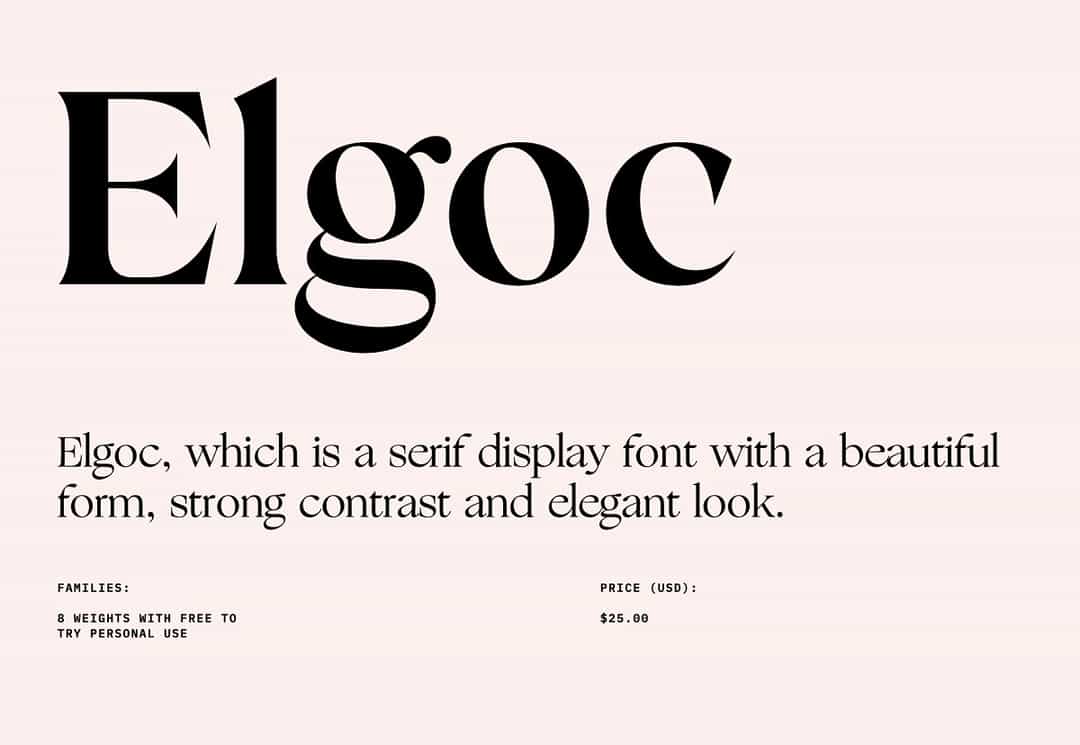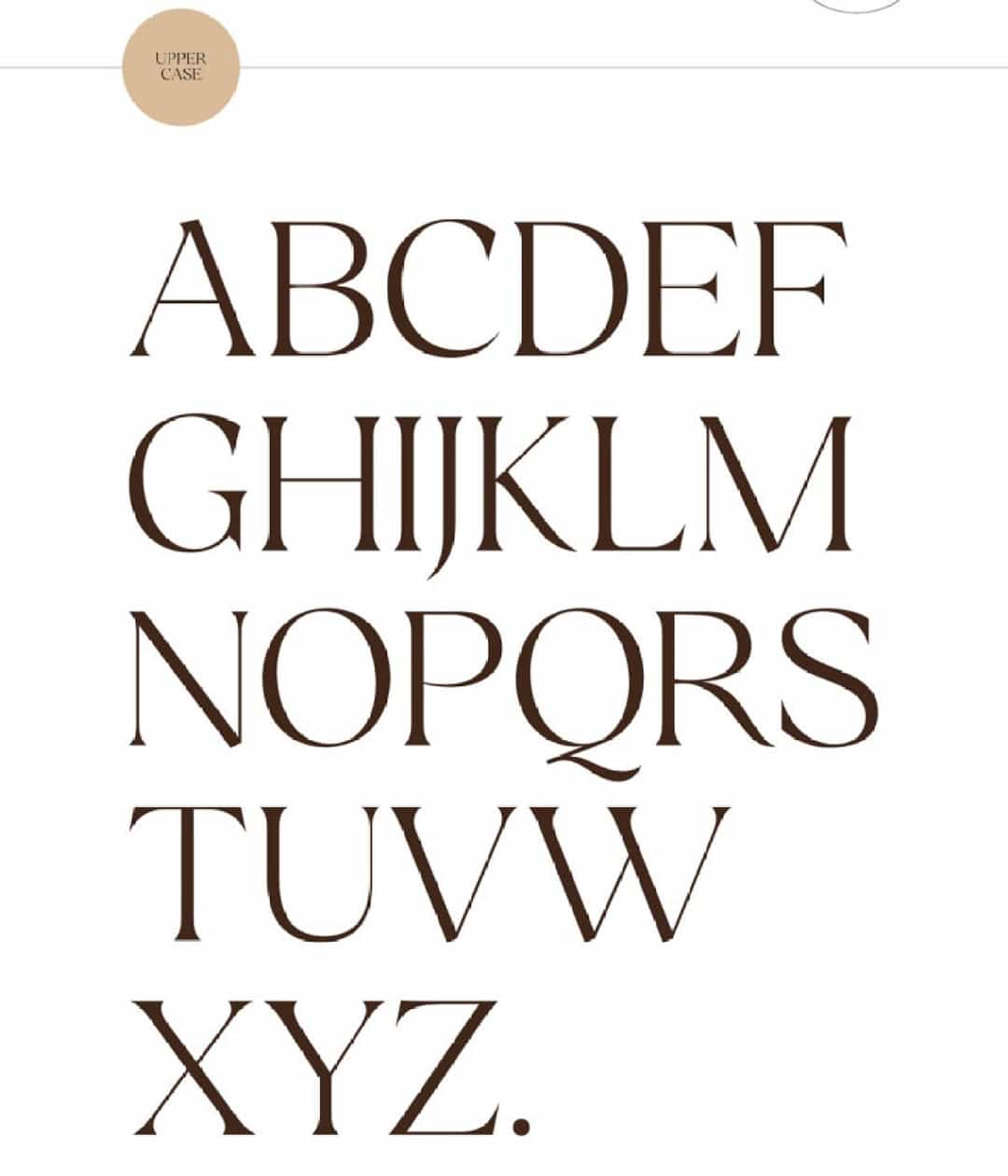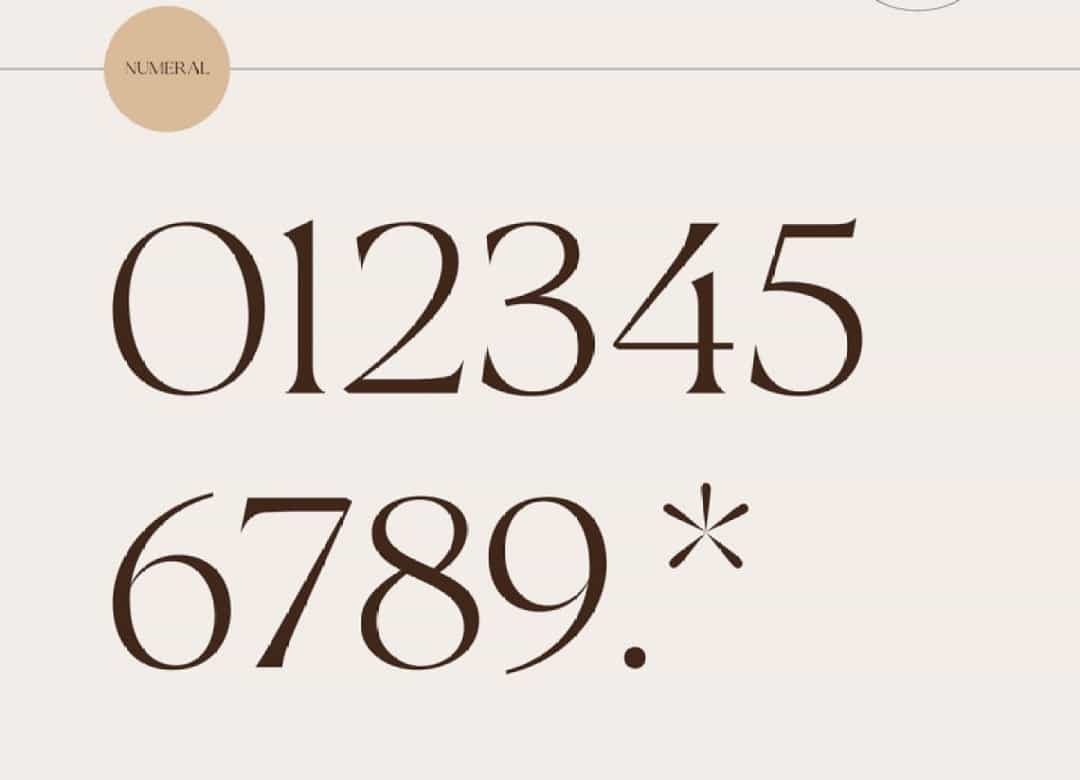
Elgoc can be described as an elegant and stylish serif typeface released by Santi Rey. Its basic characters feature elegant yet well-balanced characters; as a result, Elgoc is ideal for use across various styles.